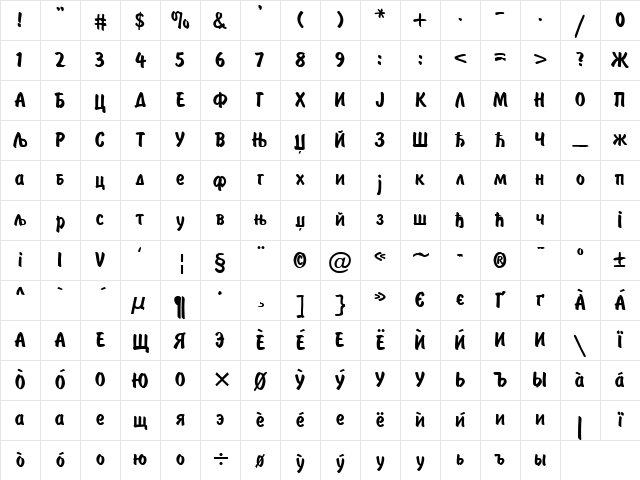
Cir BrushType Regular
Design Context for Cir BrushType
Cir BrushType flows with the natural rhythm of handwritten lettering, making it ideal for designs that call for warmth and personal expression.
Font Pairing: Combine Cir BrushType with a simple geometric sans for maximum contrast - the tension between flowing curves and clean structure is a classic typographic pairing.
Pro Tip: Use Cir BrushType for short runs of text - names, titles, or taglines. Extended body copy in script faces tires the eye quickly.